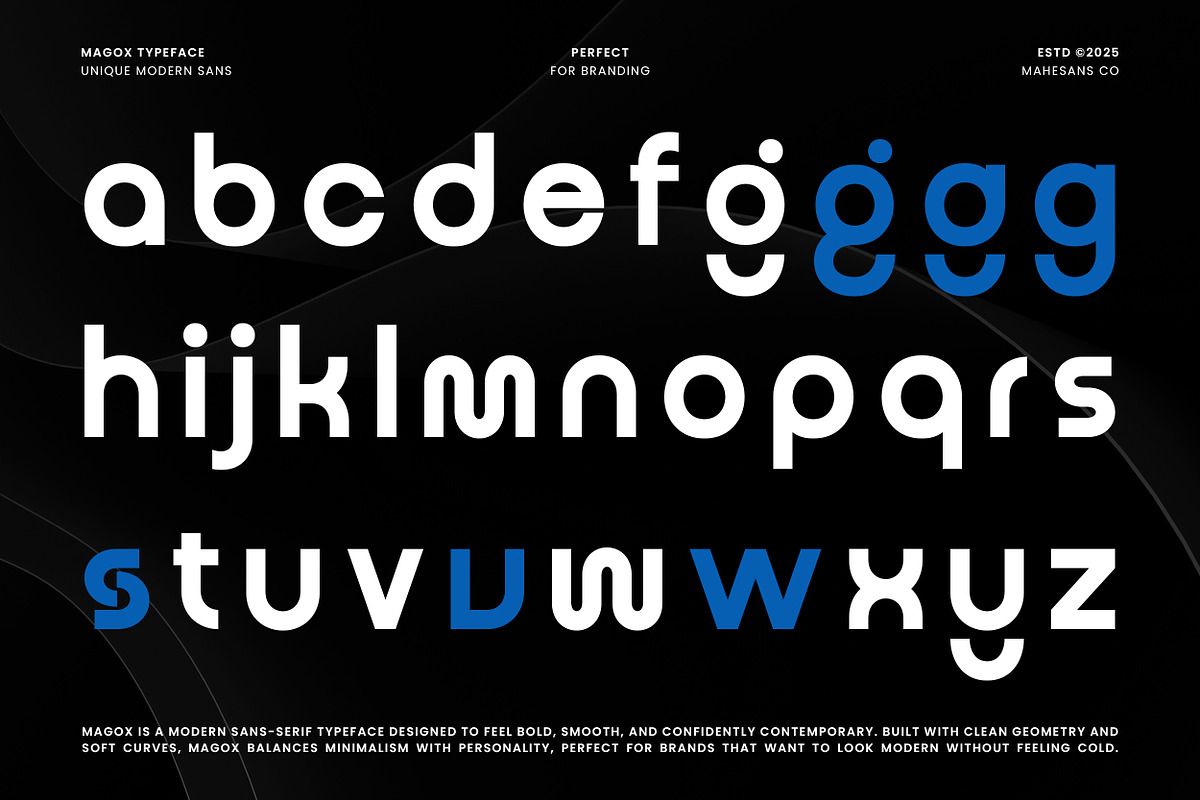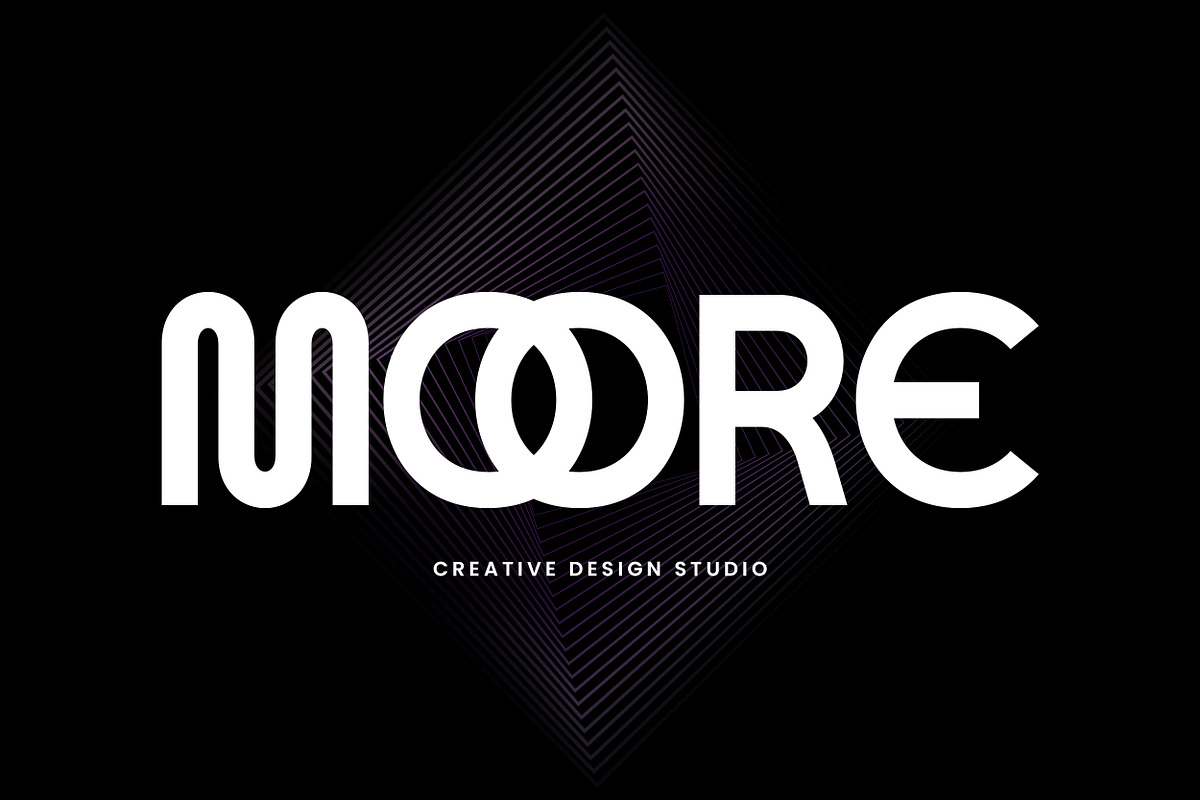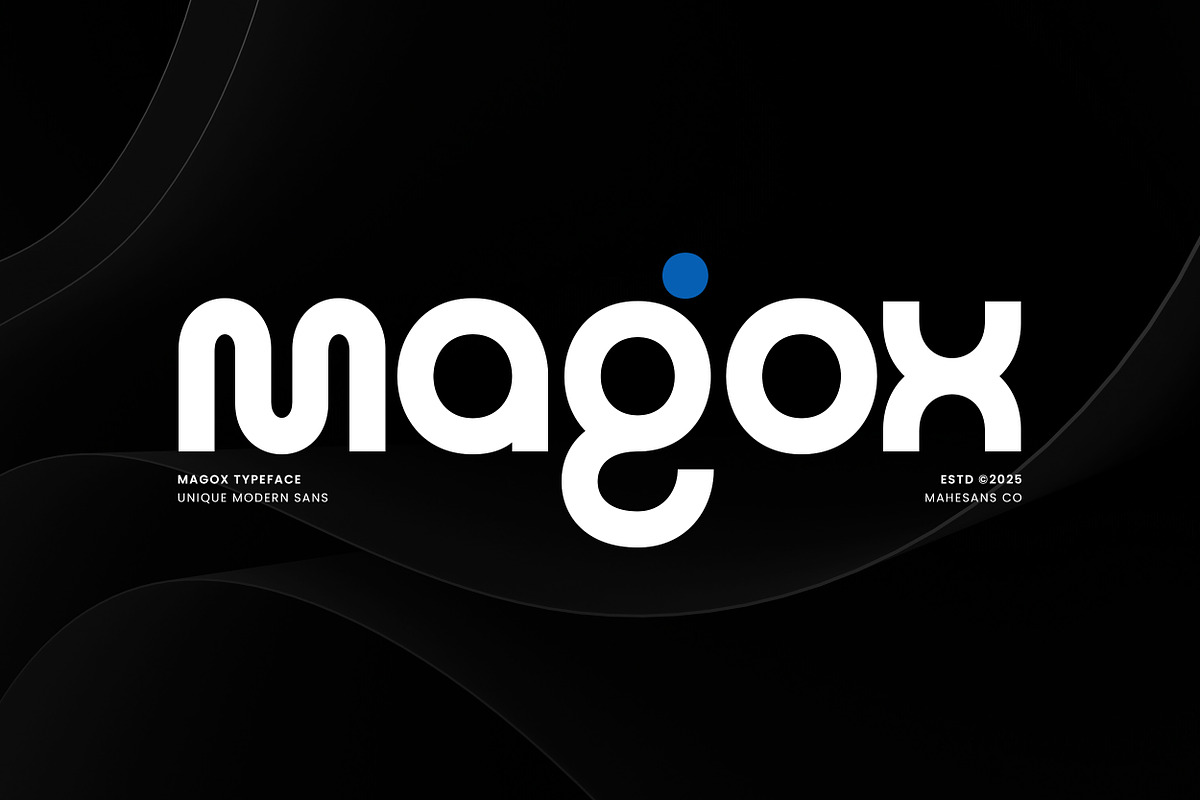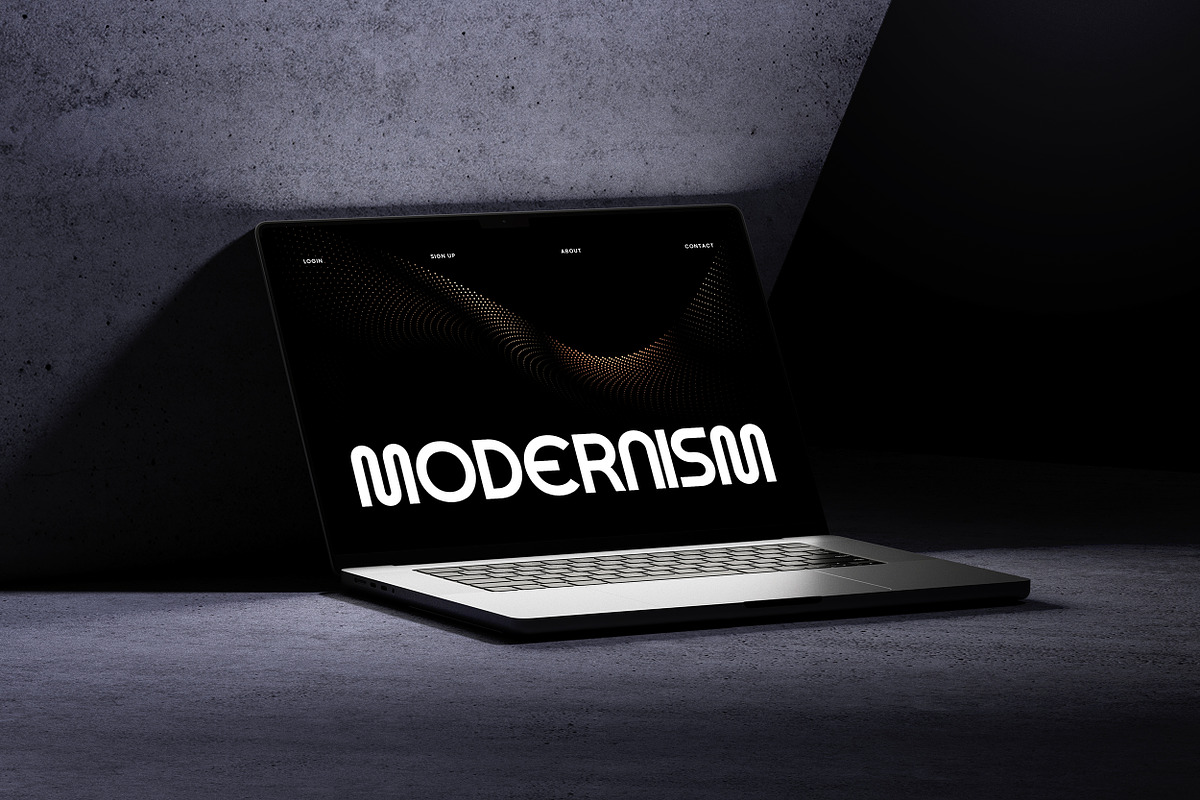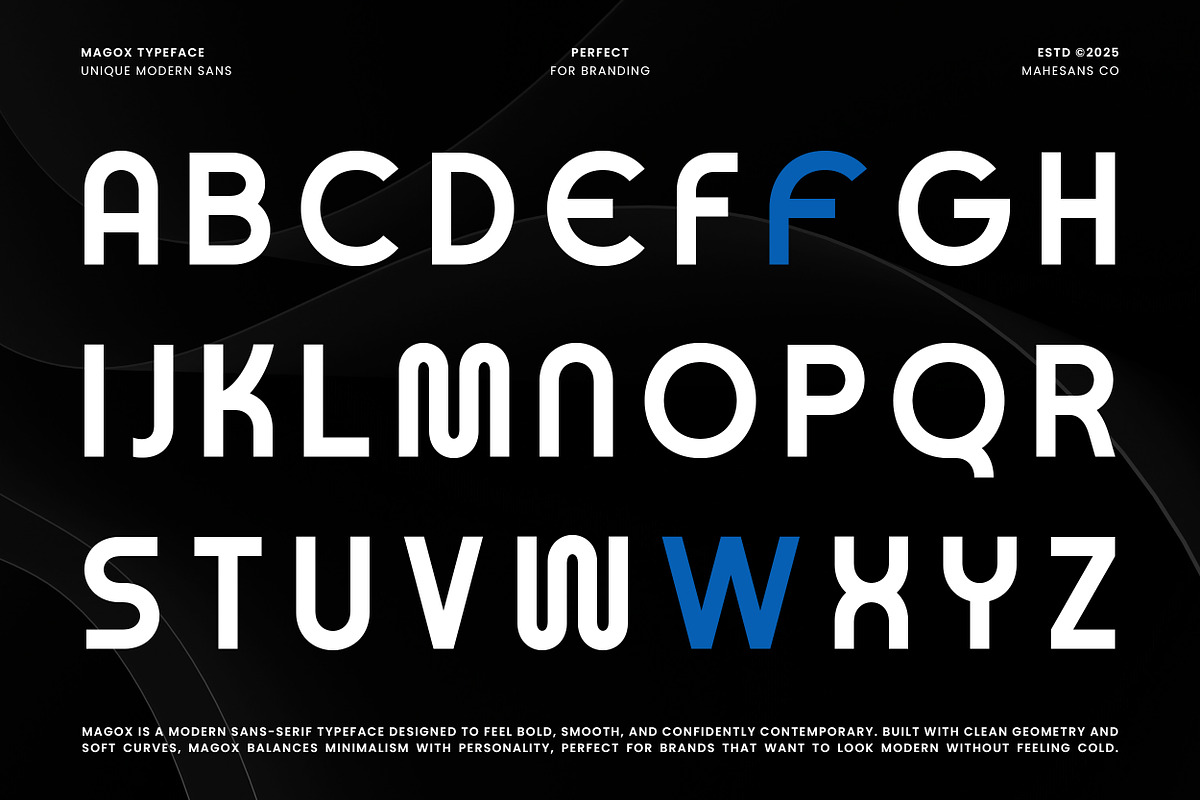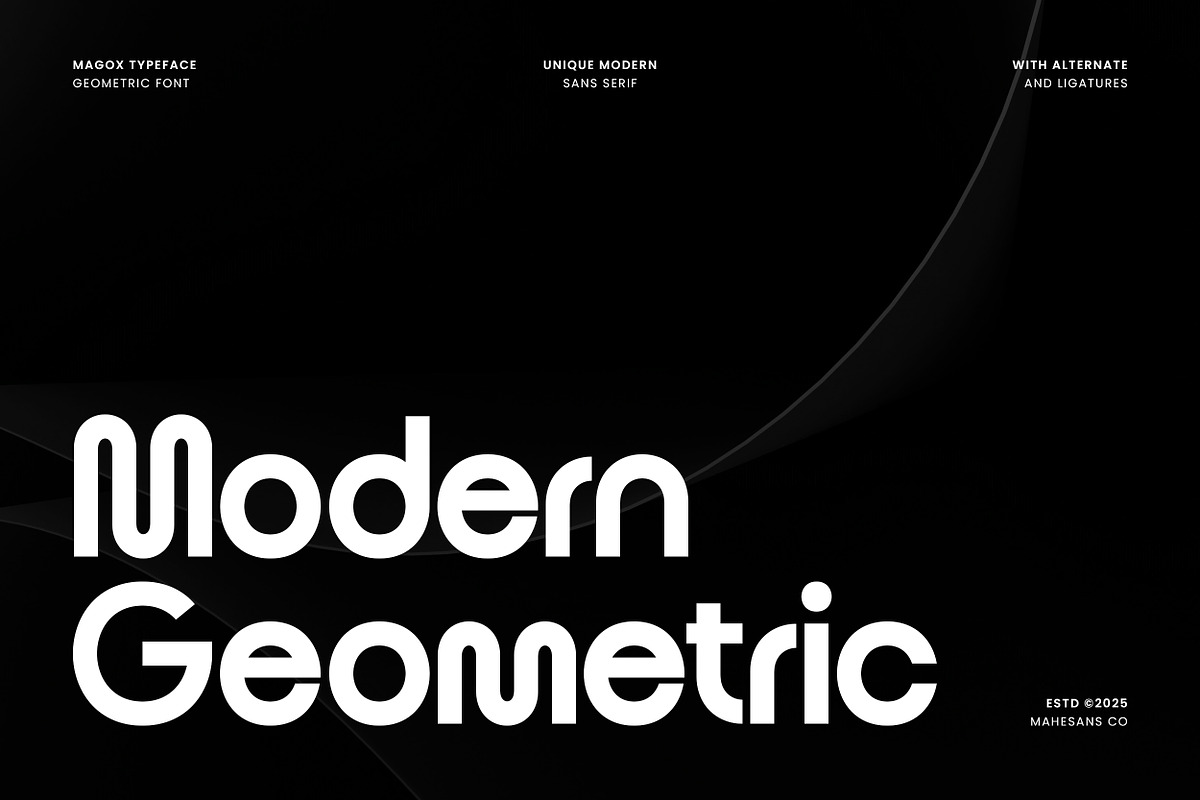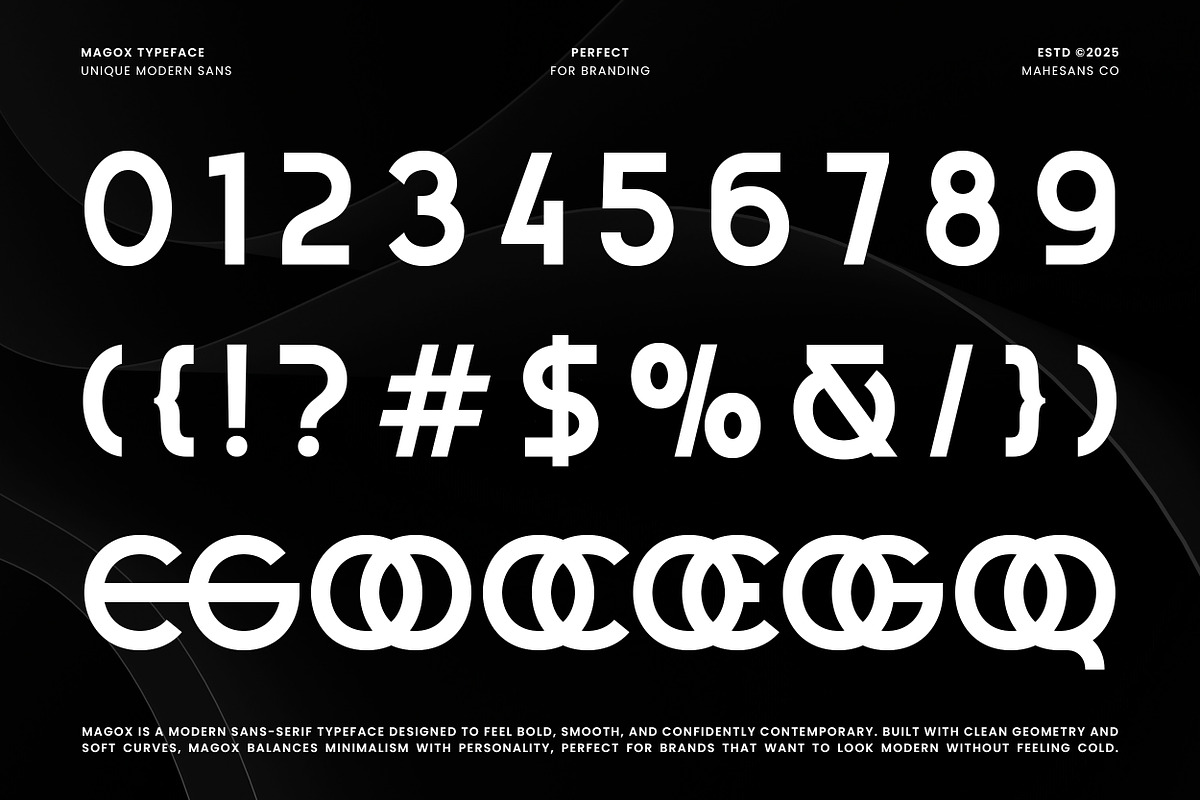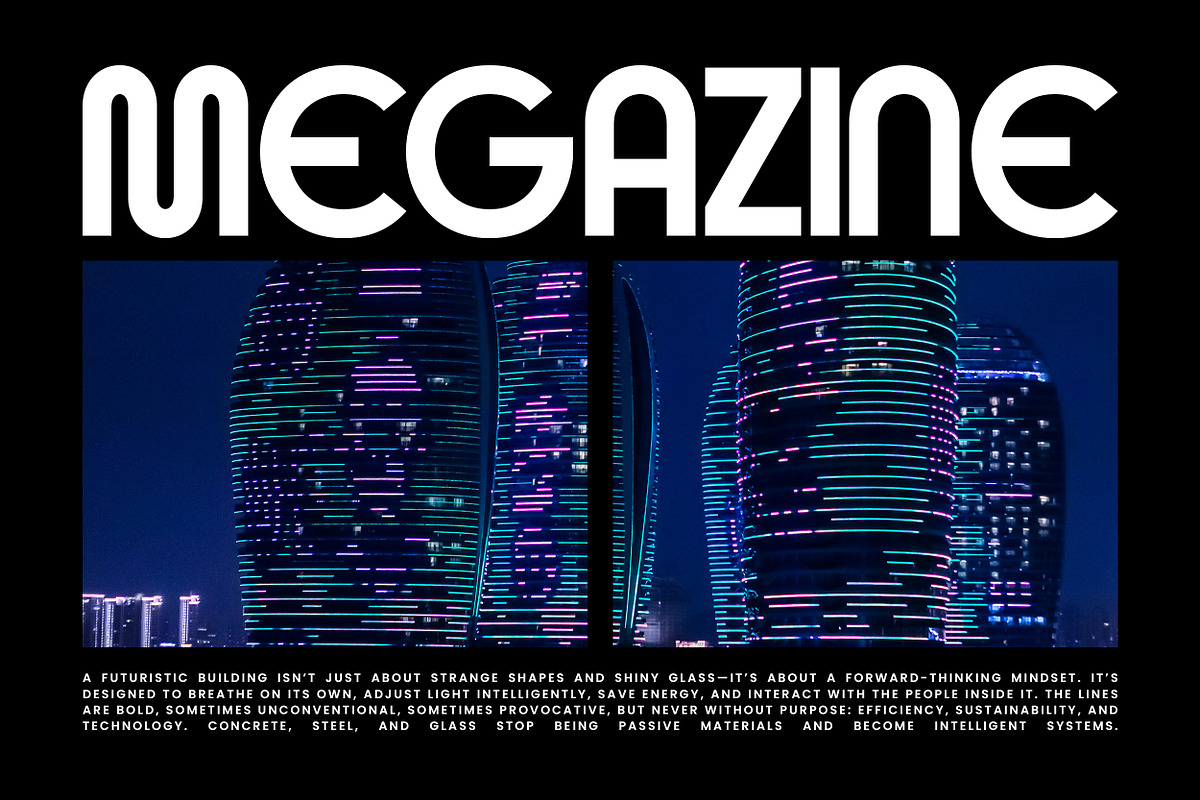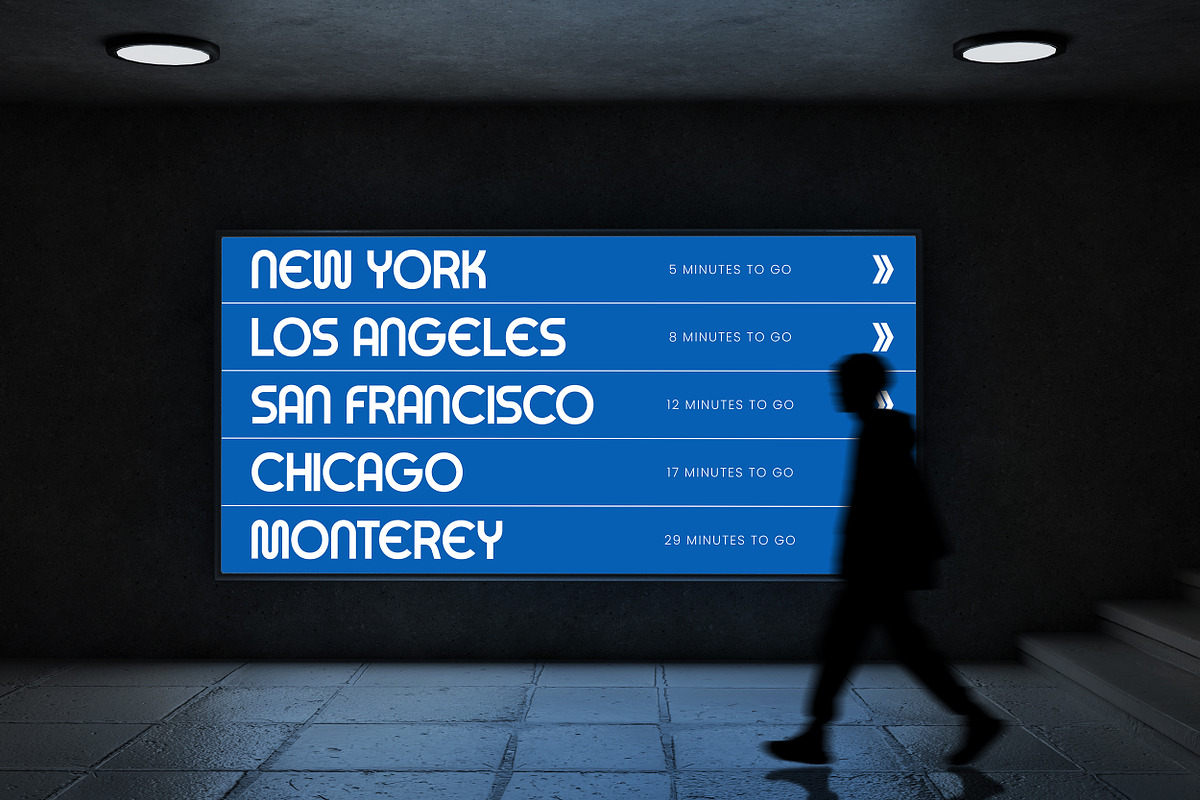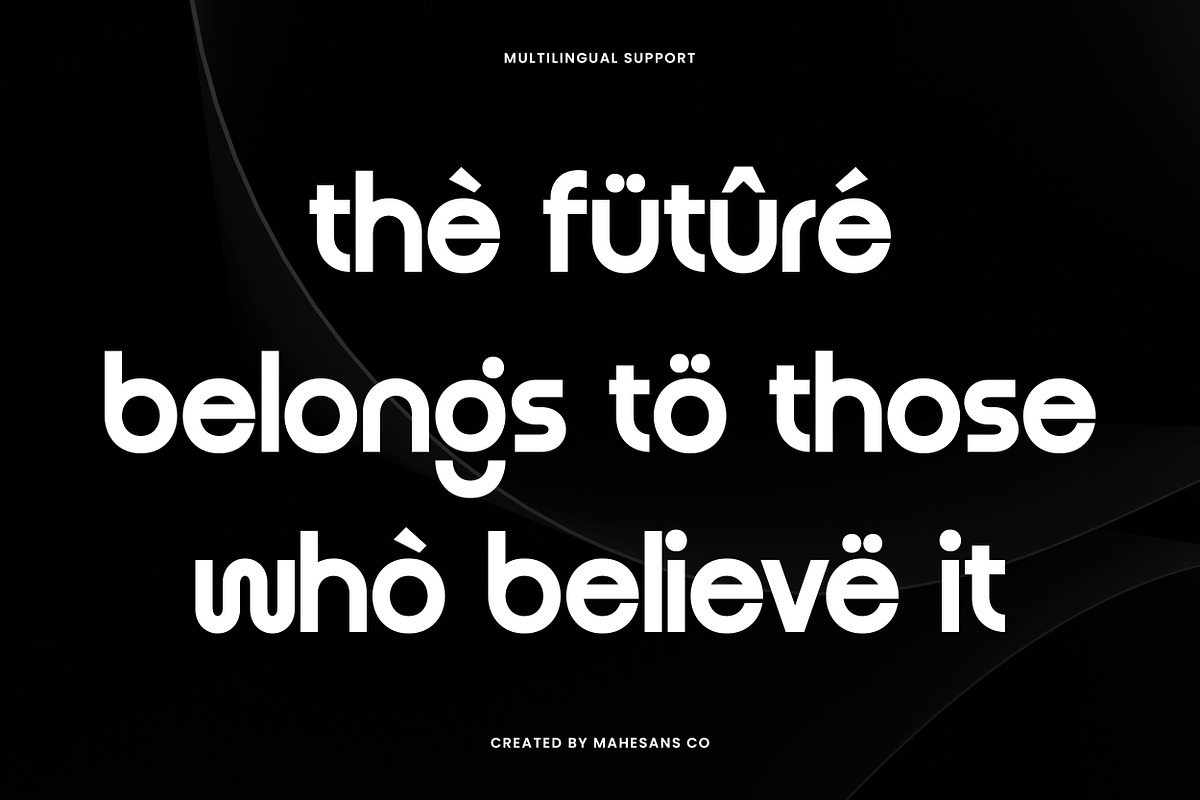
Magox – Unique Modern Sans Serif
Magox is a modern sans-serif typeface designed to feel bold, smooth, and confidently contemporary. Built with clean geometry and soft curves, Magox delivers a strong visual presence without feeling rigid or cold.
This typeface is made for brands that value clarity, balance, and modern aesthetics. Its rounded forms and consistent proportions make it highly readable, while subtle details add personality that sets it apart from generic sans fonts.
Perfect for branding, logos, headlines, packaging, posters, websites, and social media visuals, Magox adapts easily across digital and print use. Whether you’re building a minimalist identity or a bold modern brand, Magox gives your typography a confident, professional voice.
- Brand identity
- Logos & wordmarks
- Editorial & headlines
- Posters & packaging
- Web & UI design
- Social media content
- Multilanguage